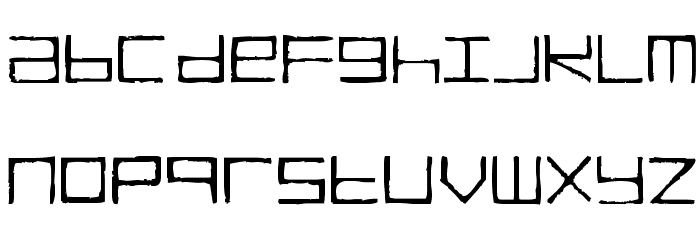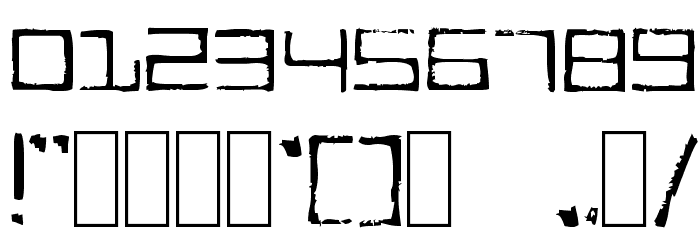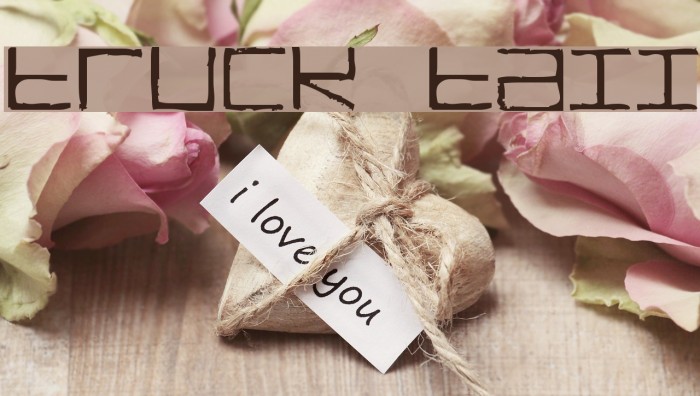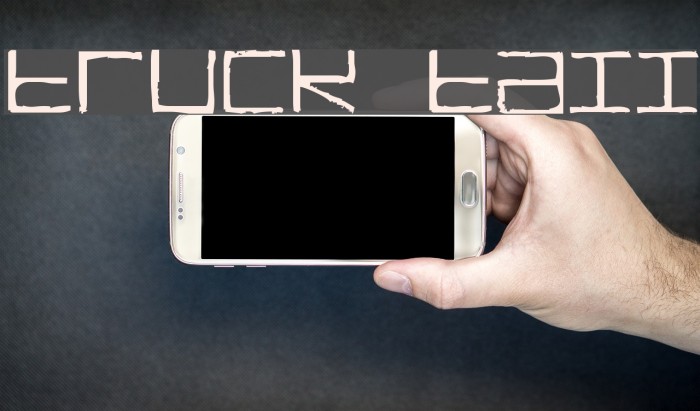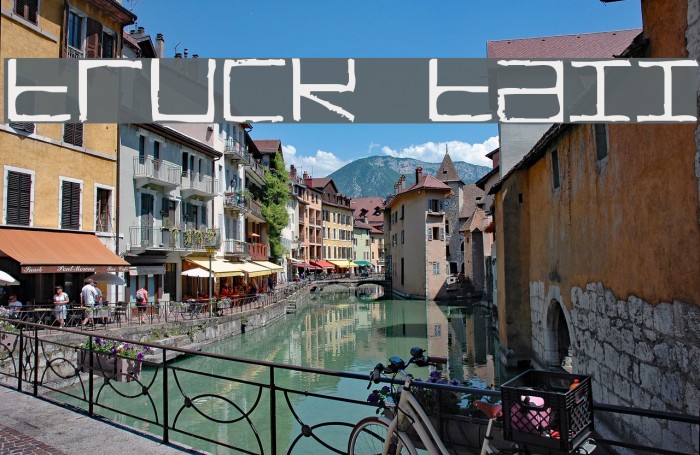
TRUCK Transmission Font
This font features a rugged, distressed style with a stencil-like appearance. The characters are bold and have a worn, industrial look, reminiscent of machinery or urban settings. The uppercase and lowercase letters maintain a consistent height, giving the font a monospaced feel, although it is not strictly monospaced. The numbers and special characters follow the same distressed pattern, adding to the cohesive, gritty aesthetic. The font's unique style makes it stand out, with each character appearing as if it has been stamped or printed with a rough texture.
A rugged, distressed stencil-style font with an industrial, urban feel.
- Proposed Projects: Ideal for projects requiring a bold, industrial look such as posters, logos, apparel design, or urban-themed graphics.
- Overall Style: Industrial, Urban, Rugged
- Use Case: Logos, Posters, Apparel Design